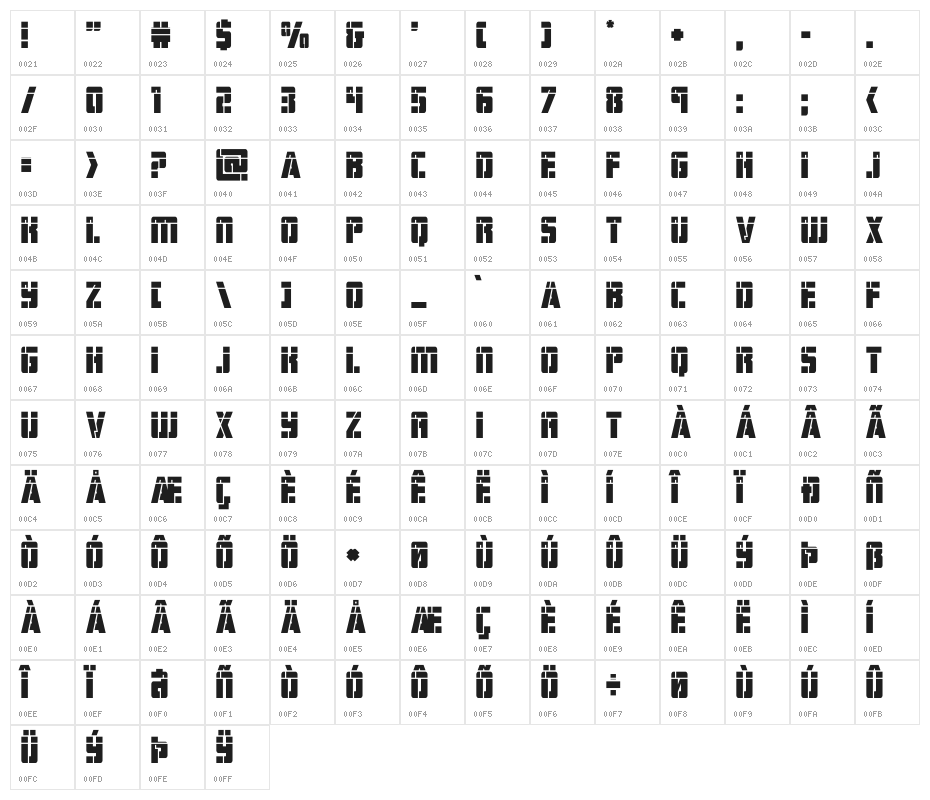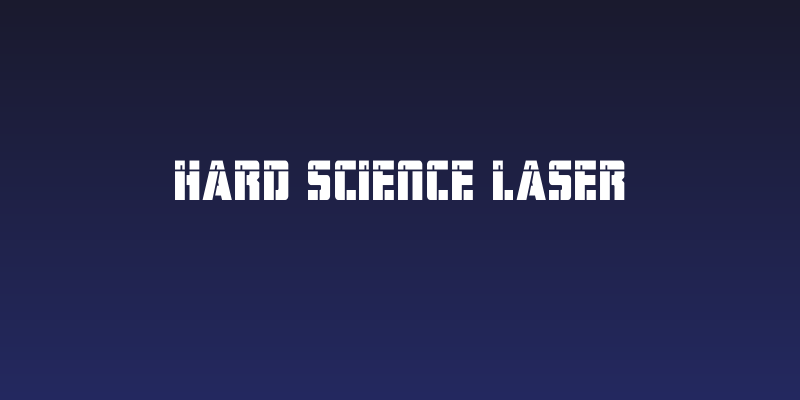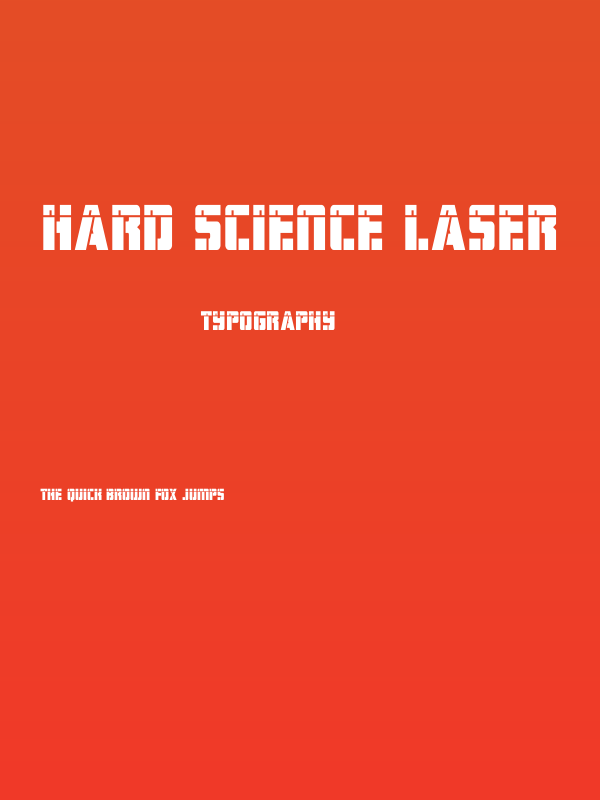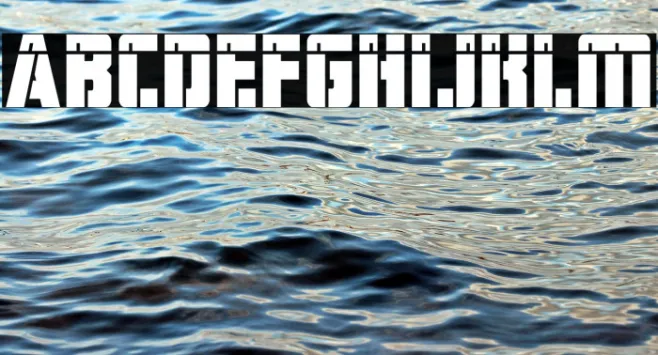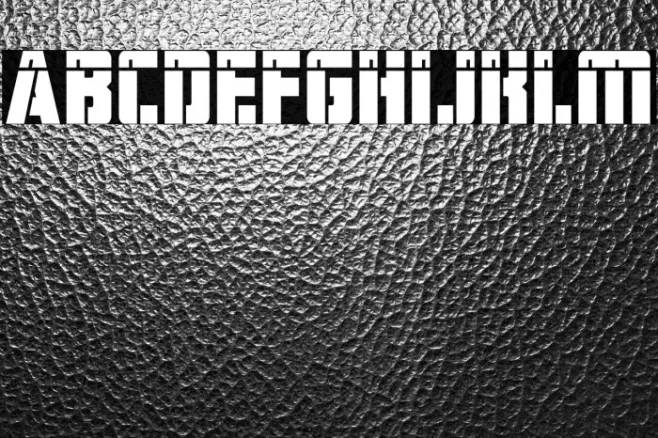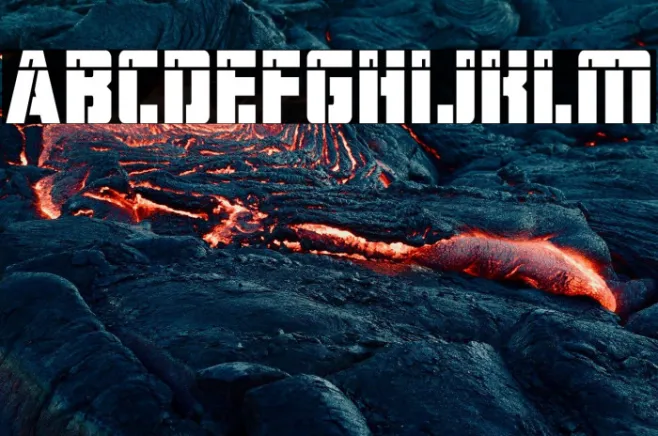
Hard Science Laser Font
Hard Science Laser Description
This font features a bold, futuristic design with a stencil-like appearance. The characters are constructed with solid, blocky shapes, giving them a strong and impactful presence. The geometric cuts and angles within each letter add a sense of modernity and precision, reminiscent of industrial or technological themes. The uppercase and lowercase letters maintain a consistent style, with uniform height and width, enhancing readability while preserving the unique aesthetic. Numbers and special characters are designed to match the boldness and style of the alphabet, ensuring a cohesive look across all text elements.
| Proposed Projects | Ideal for projects related to technology, science fiction, or industrial design, such as posters, logos, and branding materials. |